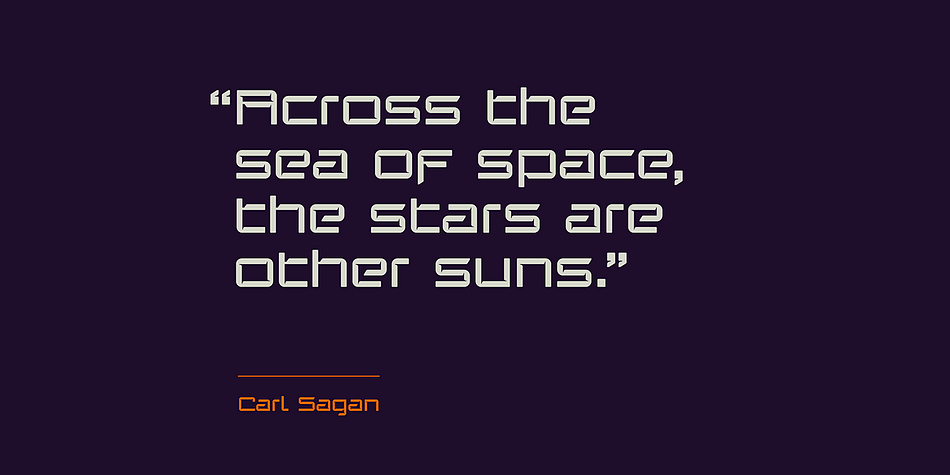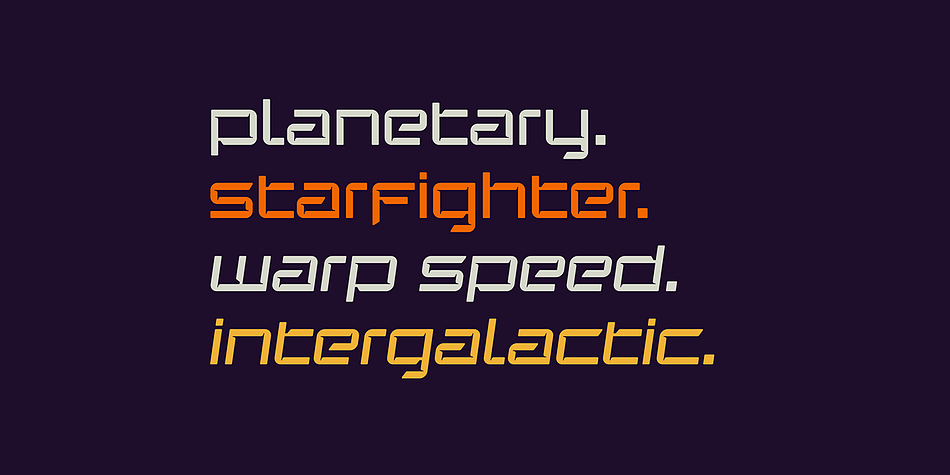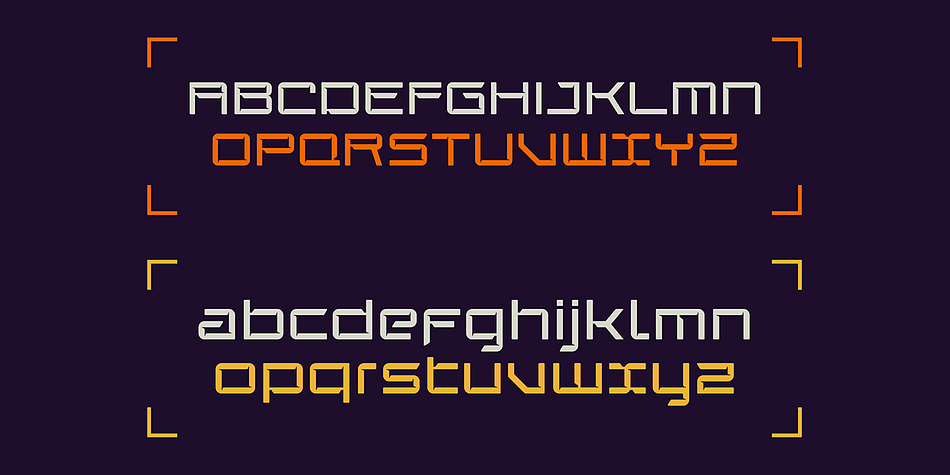
Designed by Craig Stainton, SB Saturn is a display sans font family. This typeface has two styles and was published by SelfBuild Type Foundry.
SB Saturn is a futuristic sc-fi font in regular and italic.